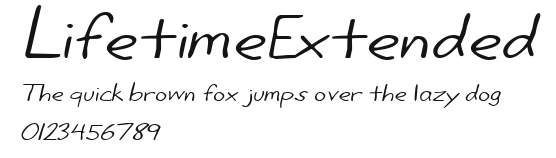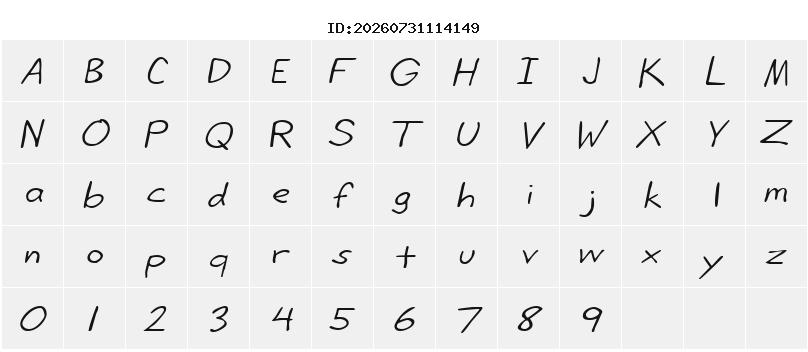
LifetimeExtended Preview
• Font Name: LifetimeExtended
• Font Style: Oblique
• Full Font Name: LifetimeExtended Oblique
About LifetimeExtended.ttf
LifetimeExtended.ttf is a modern, elegant sans-serif font designed for ultimate readability and visual harmony. Perfect for branding, headlines, web design, and print materials.